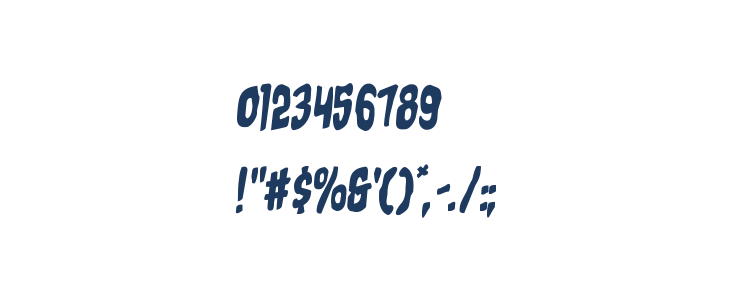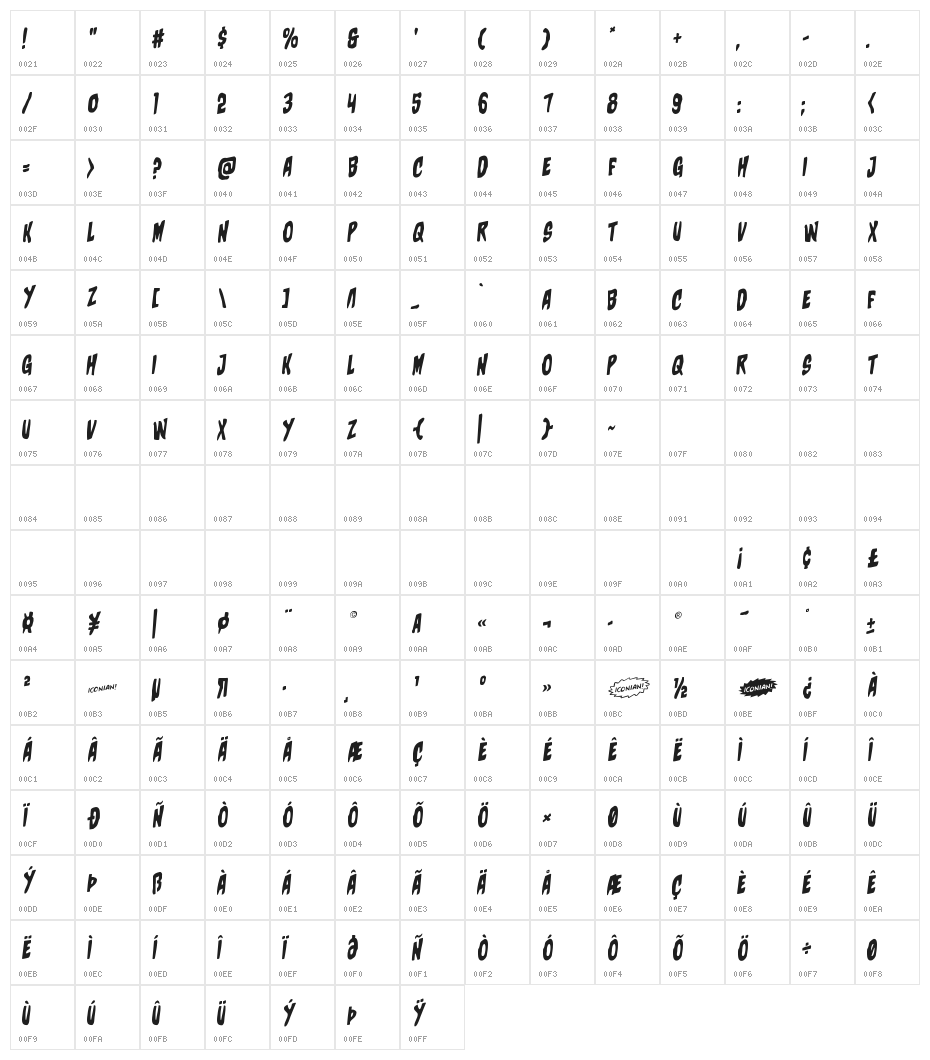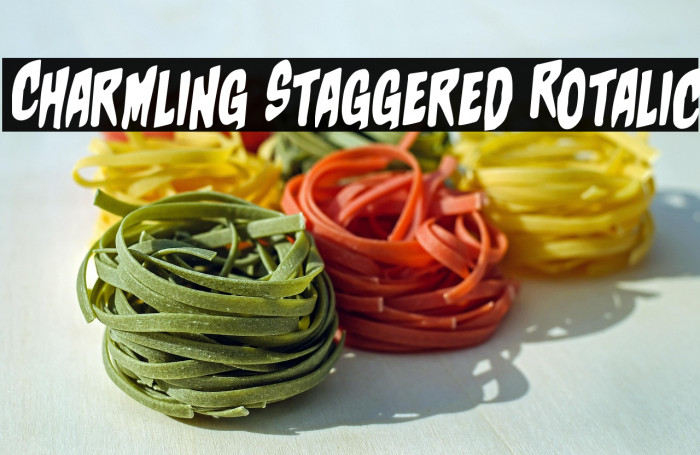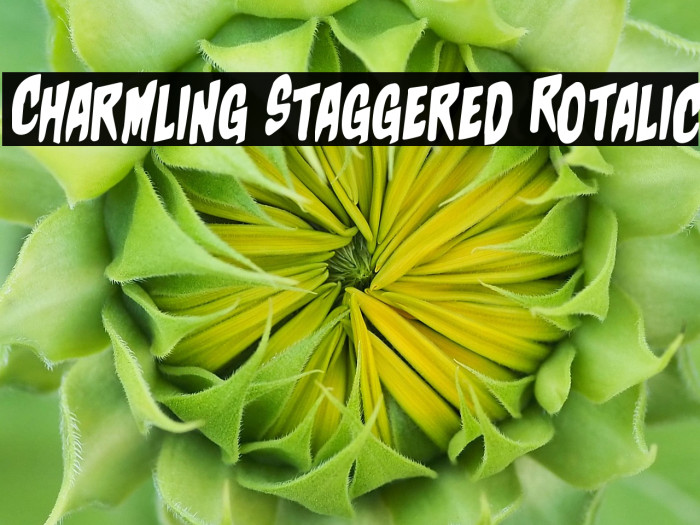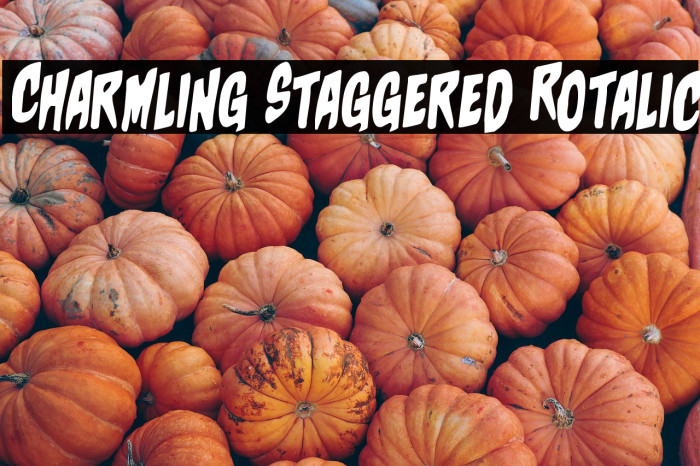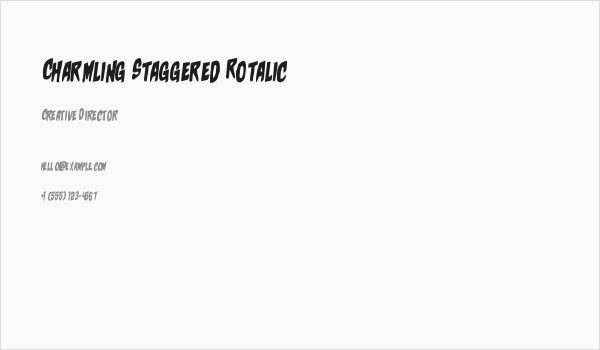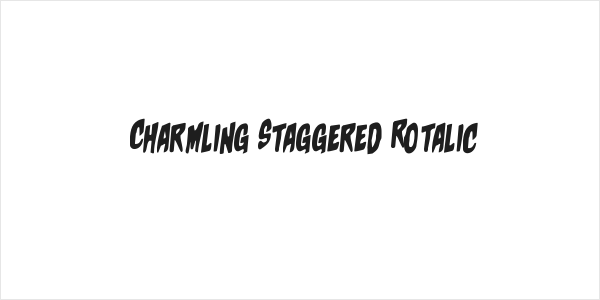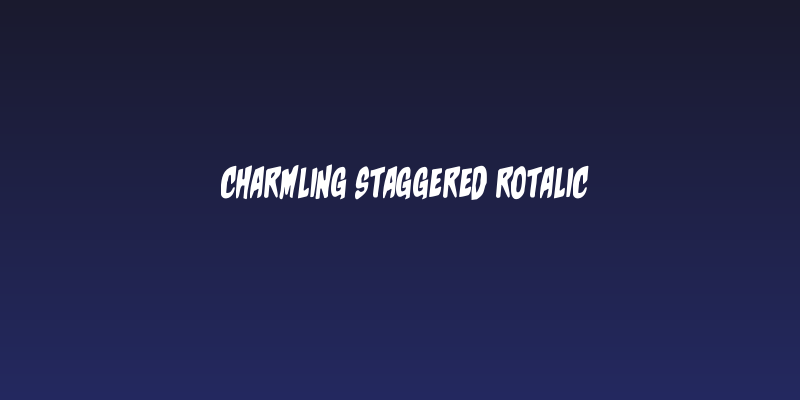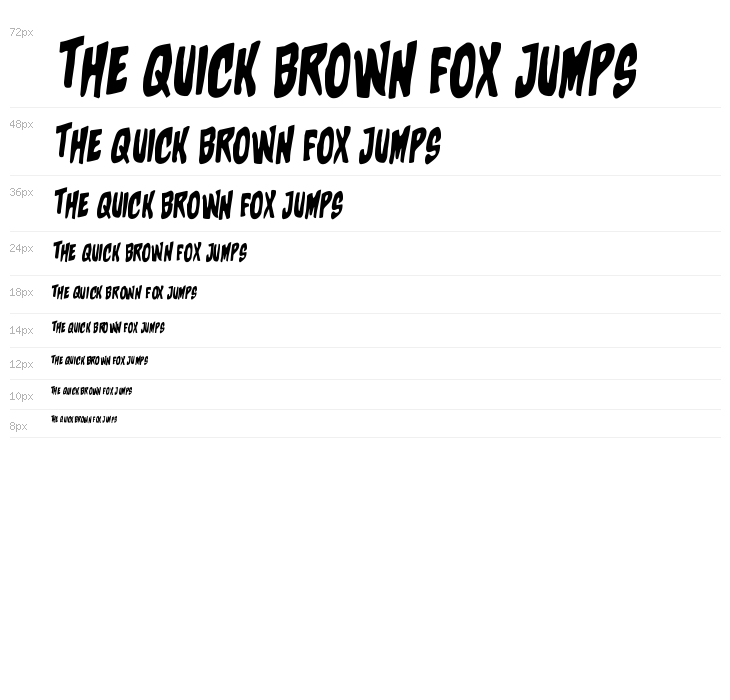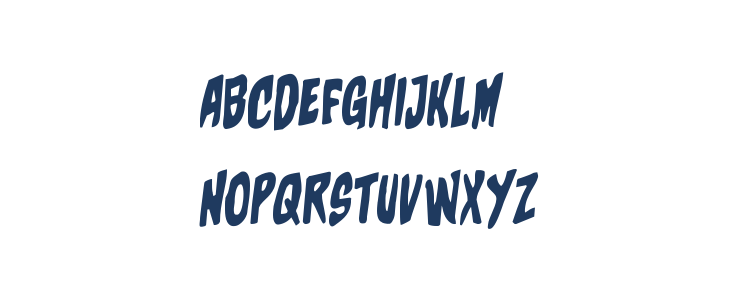
Charmling Staggered Rotalic Font
Charmling Staggered Rotalic Description
This font features a bold and dynamic style with a staggered, italicized appearance. The letters are thick and slightly slanted, giving a sense of movement and energy. The uppercase and lowercase letters maintain a consistent style, with rounded edges and a playful, informal look. The numbers and special characters follow the same design principles, ensuring uniformity across all glyphs. This font is ideal for projects that require a lively and engaging typeface, such as posters, advertisements, or branding materials.